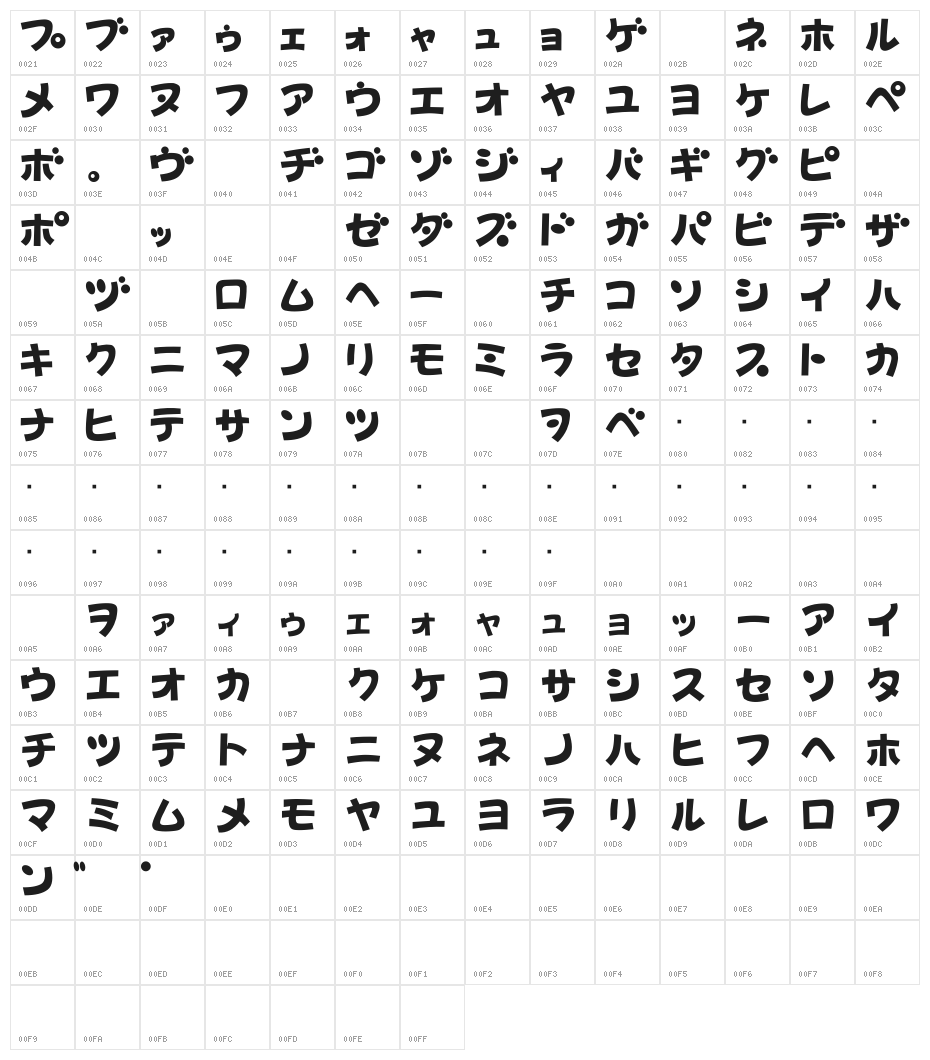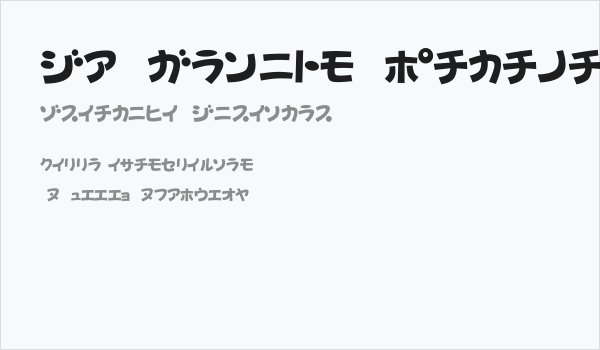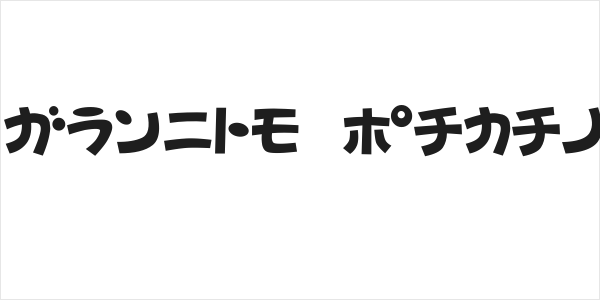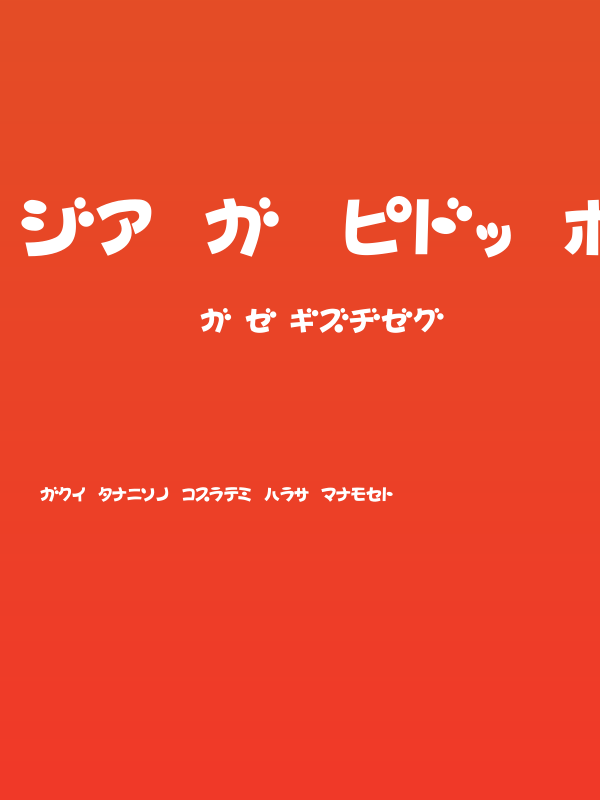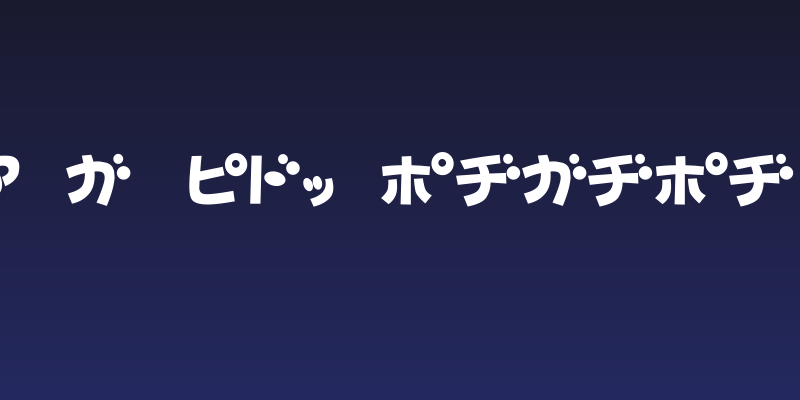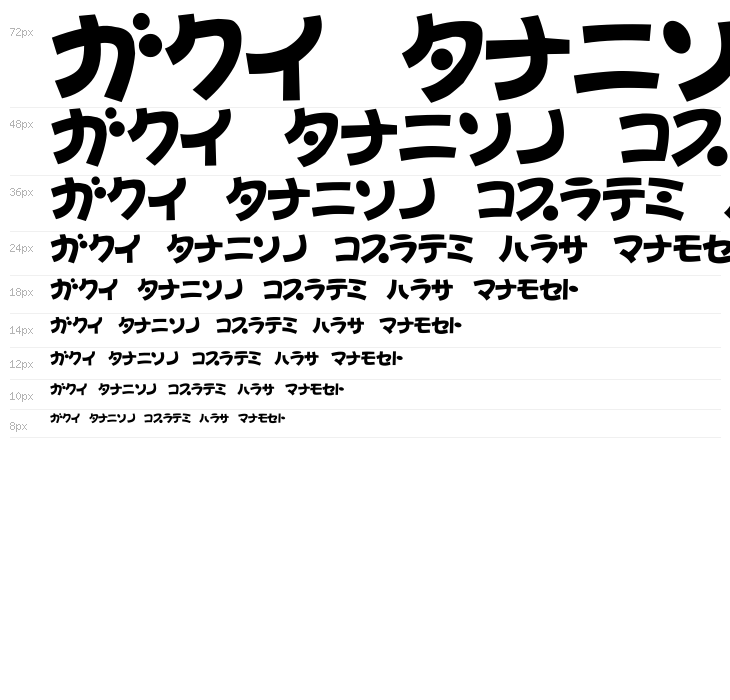
D3 Toyism Katakana Font
D3 Toyism Katakana Description
This font features a playful and bold style, characterized by its rounded and slightly exaggerated forms. The strokes are thick and consistent, giving it a strong presence. The characters are designed with a whimsical touch, incorporating subtle curves and angles that add to its unique personality. The overall appearance is both modern and approachable, making it suitable for creative and informal applications. The font's distinctiveness lies in its ability to convey a sense of fun and energy, while maintaining readability.
| Proposed Projects | Ideal for children's books, playful branding, posters, and creative digital content. |